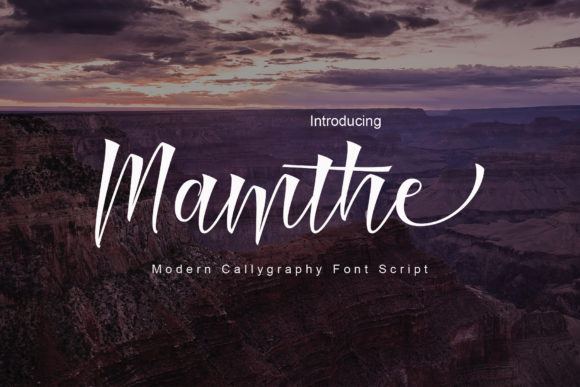
In a world where digital landscapes echo with uniformity, Mamthe Font emerges as a breath of fresh air, a calligraphic masterpiece that whispers authenticity and embraces the beauty of imperfections. Inspired by the timeless allure of handwritten notes, this font transcends the boundaries of the ordinary, inviting you to weave tales with an air of genuine charm.
Mamthe Font is the epitome of modern calligraphy, a dance of strokes that celebrate the human touch. Its curves flow with a rhythmic grace, capturing the essence of handwritten elegance. Each letter is a testament to the artist's hand, bearing the subtle nuances of pressure and movement. The result is a font that resonates with warmth and character, transforming your digital creations into works of art.
With Mamthe Font, you'll find yourself immersed in a symphony of creative possibilities. Its versatility knows no bounds, lending itself effortlessly to a myriad of projects. From heartfelt letters and captivating invitations to alluring branding and enchanting social media posts, Mamthe Font becomes a chameleon of style, adapting seamlessly to your creative vision.
Let your imagination soar as you craft designs that exude elegance. Picture wedding invitations adorned with Mamthe Font's delicate swirls, each letter a testament to the love and joy of the occasion. Envision social media posts that captivate your audience with their handwritten charm, inviting them into a world of stories and emotions. Capture the essence of nostalgia with Mamthe Font's vintage appeal, or embrace a contemporary edge with its modern flair.
Mamthe Font is more than just a collection of characters; it's an invitation to explore the beauty of individuality. Its imperfections are its perfection, a reminder that true artistry lies in embracing the quirks and nuances that make us unique. As you design with Mamthe Font, you'll find yourself connecting with your creative spirit, discovering new depths of expression and leaving an indelible mark on the hearts of your audience.
So, embark on this calligraphic journey with Mamthe Font. Let your creativity flow, let your imagination take flight, and let the world witness the magic that unfolds when authenticity and artistry intertwine.